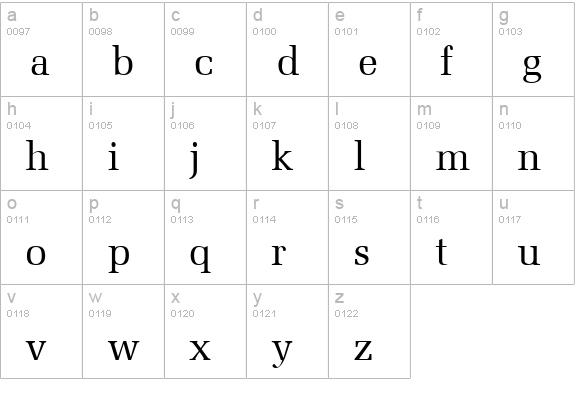
Memoir Regular is the standard, neutral variant in the Memoir typeface family \xE2\x80\x94 well suited to general body text, paragraphs, and standard typographic work.
Memoir Regular is a classic and elegant font that exudes sophistication and charm. With its clean lines and timeless appeal, this font is perfect for a wide range of design projects, from invitations to branding materials. The versatility of Memoir Regular makes it a popular choice among designers looking for a reliable and stylish typeface. The best part? Memoir Regular is available for free download at FontsMarket.com, allowing you to access this beautiful font without any cost. Whether you're a seasoned designer or just starting out, Memoir Regular is a must-have addition to your font collection. Embrace the beauty and versatility of Memoir Regular and elevate your designs with this exquisite typeface.